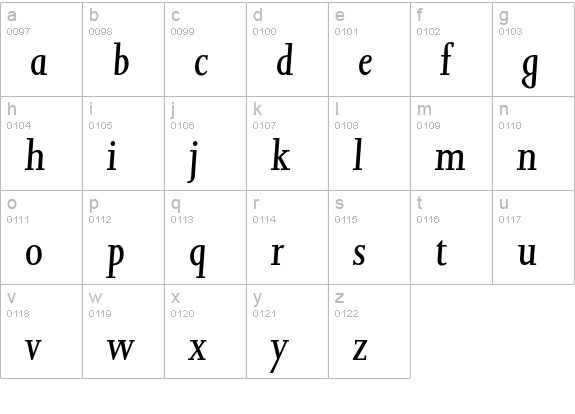
JessicaSerial-Italic is a distinctive, italic variant in the JessicaSerial typeface family \xE2\x80\x94 well suited to design and typography projects.
JessicaSerial-Italic is a sleek and elegant font that exudes sophistication and style. Its unique italicized design adds a touch of modernity to any project, making it perfect for creating a bold statement or adding a subtle flourish to your designs. This font is versatile and can be used for a wide range of purposes, from branding and advertising to invitations and social media graphics. The best part is, JessicaSerial-Italic is available for free download at FontsMarket.com. You can easily access this stunning font and incorporate it into your projects without any cost. Don't miss out on the opportunity to elevate your designs with this beautiful typeface.